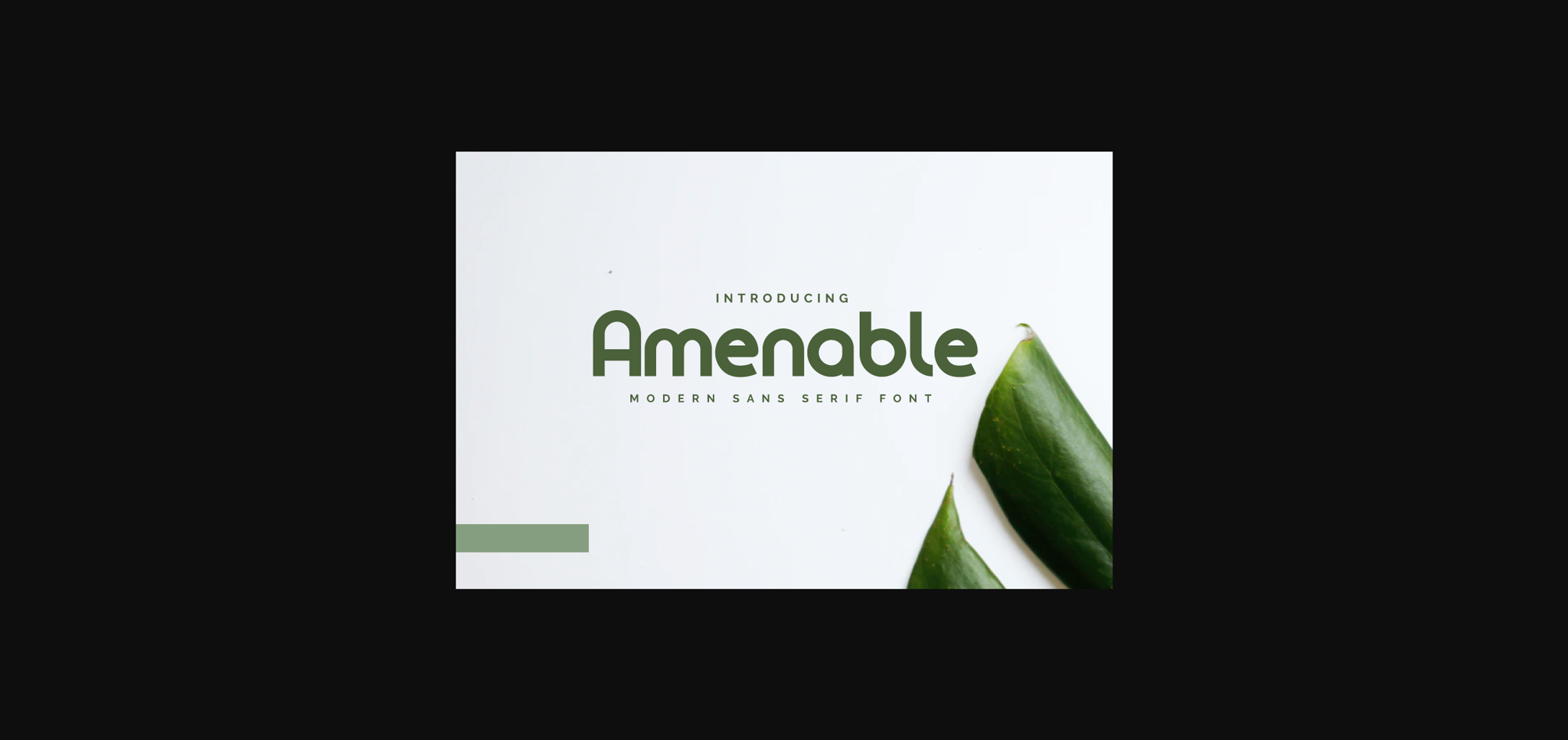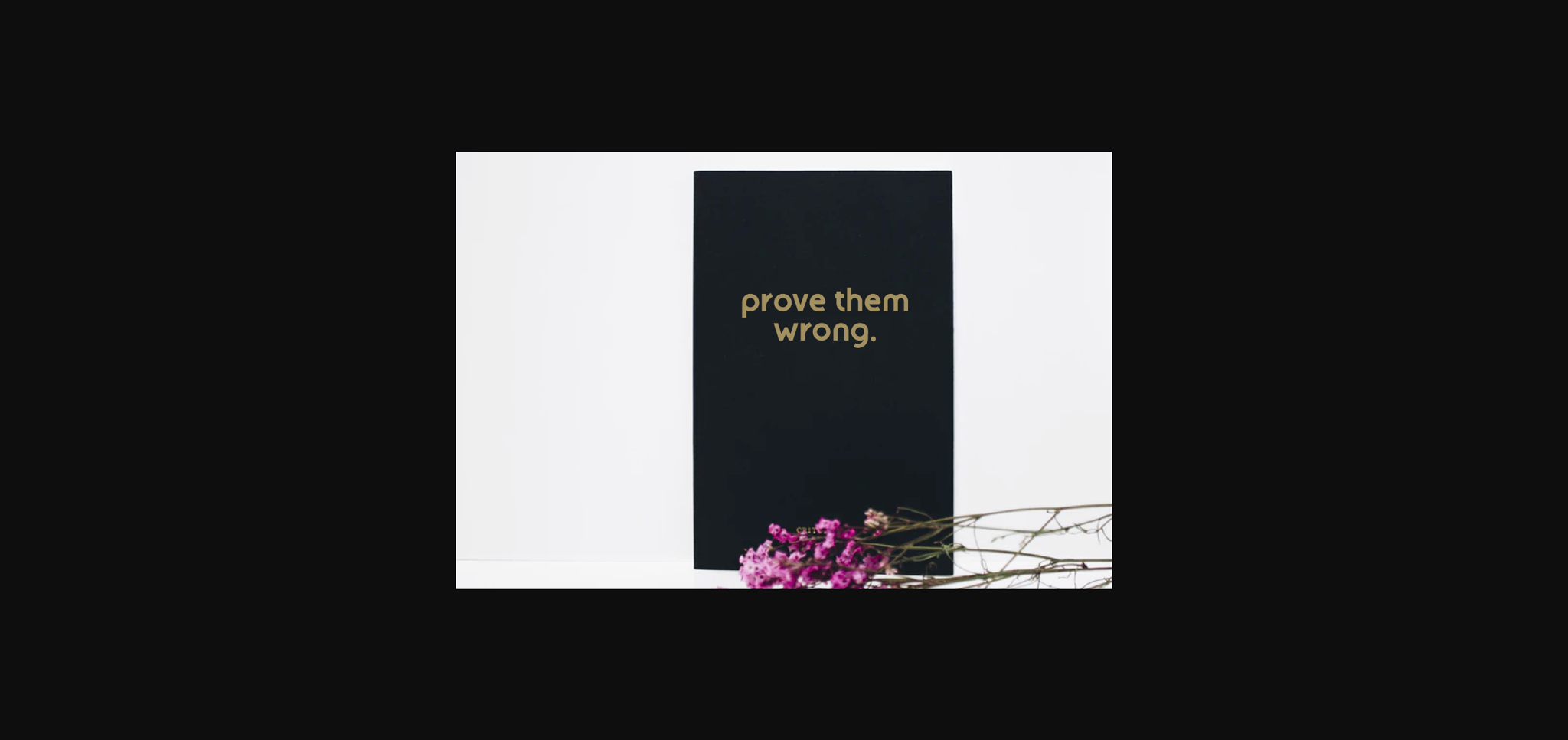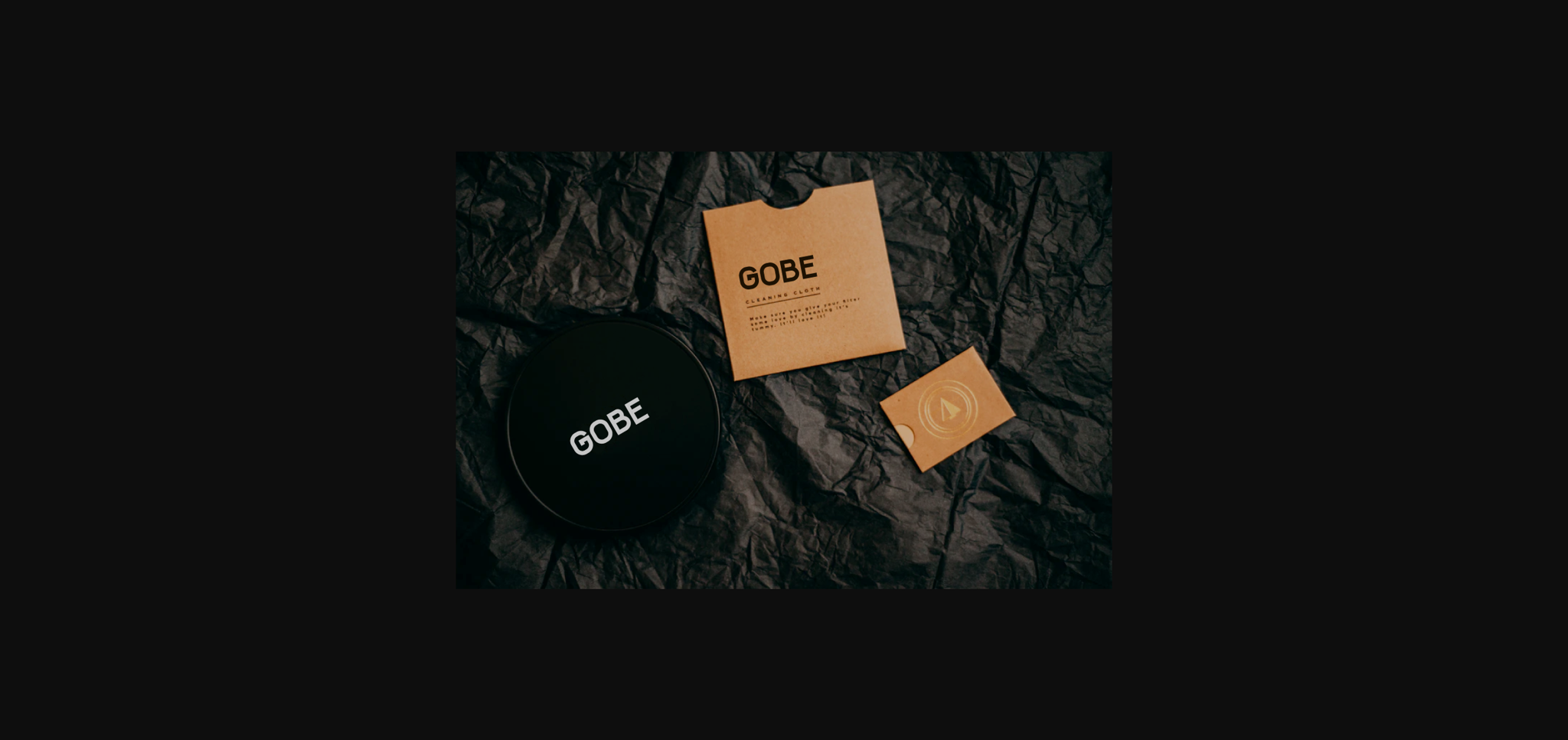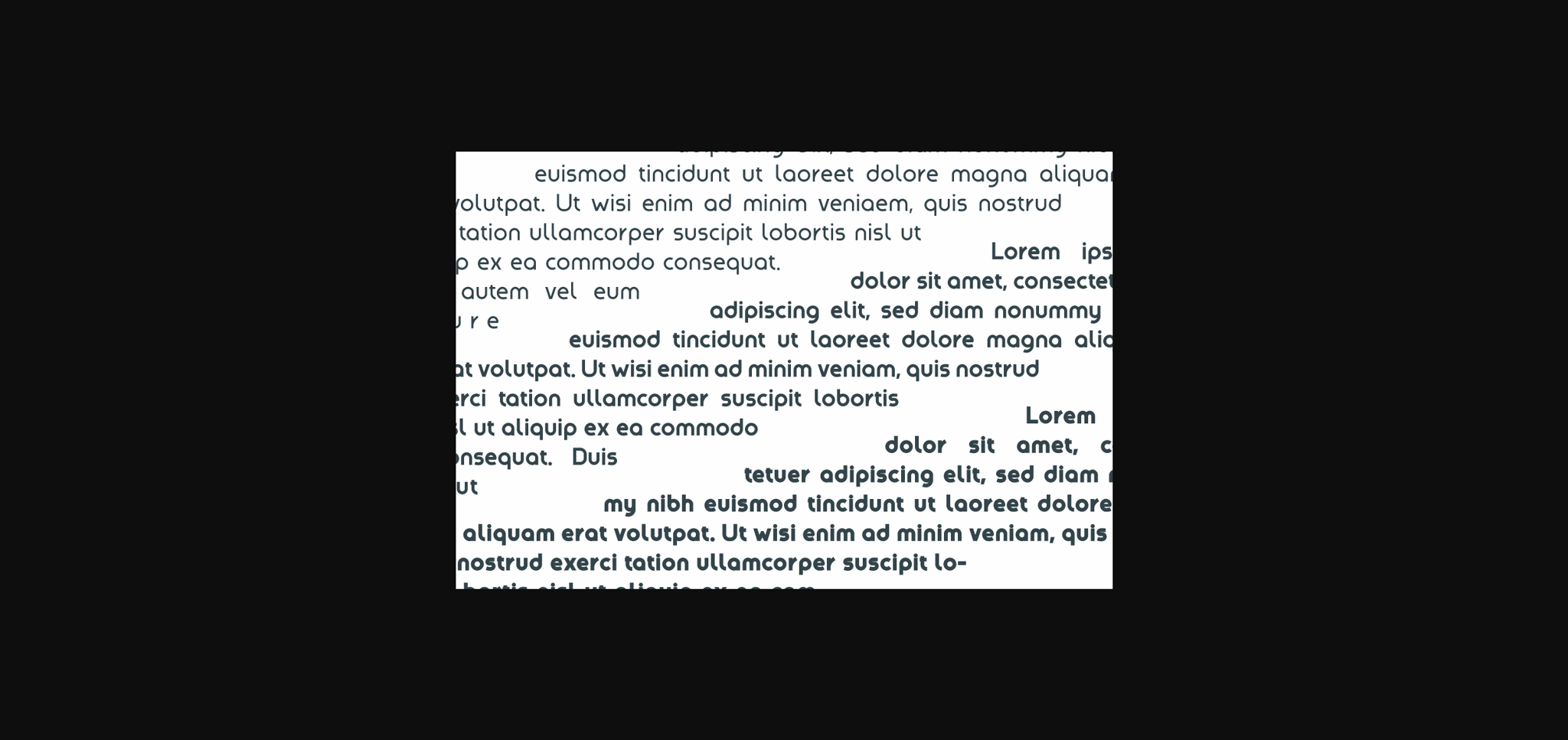
About Amenable Font
Amenable is a fresh and modern sans serif font. Itβs playfulness make it great for creative projects, be it inspirational wall posters or for communicating your brand.